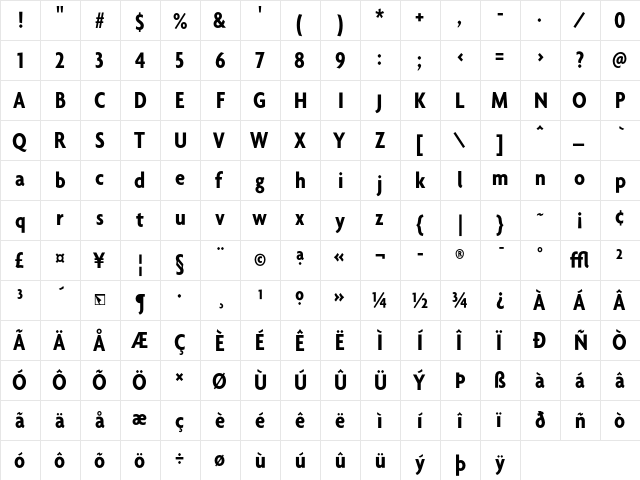
Agenda BoldCondensed
Design Context for Agenda Typeface
Agenda is a composed and adaptable typeface that performs quietly and consistently across a wide range of design contexts. The heavy weight commands attention and anchors typographic hierarchies. The condensed width makes it efficient for tight spaces without sacrificing legibility.
Dating back to 1993, this typeface is available in OpenType (OTF) format.